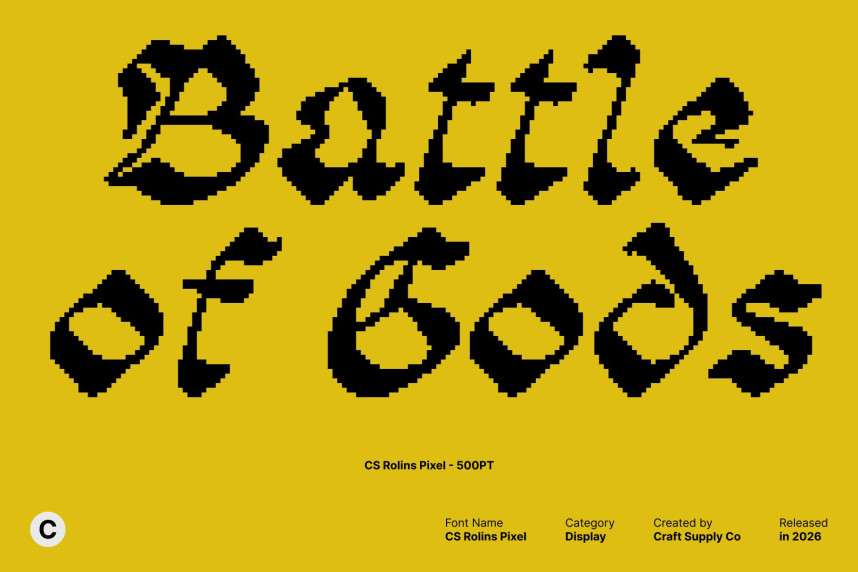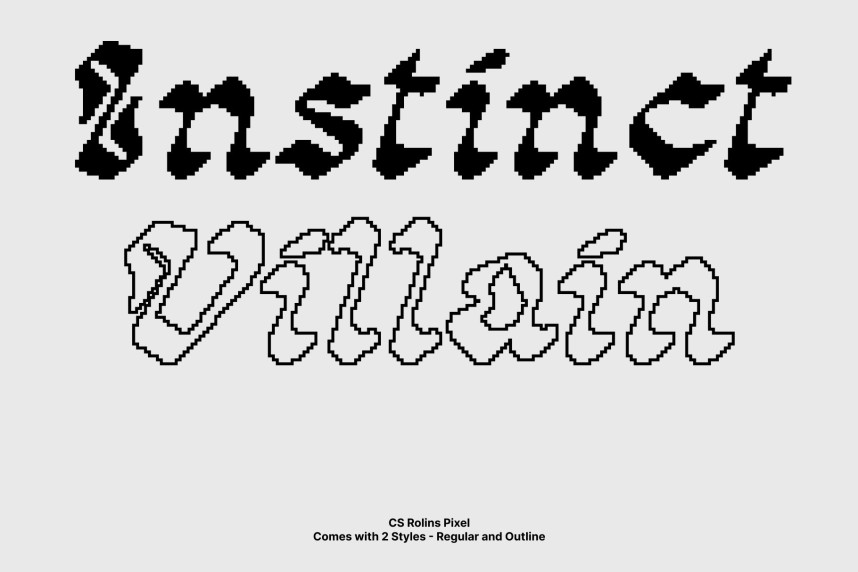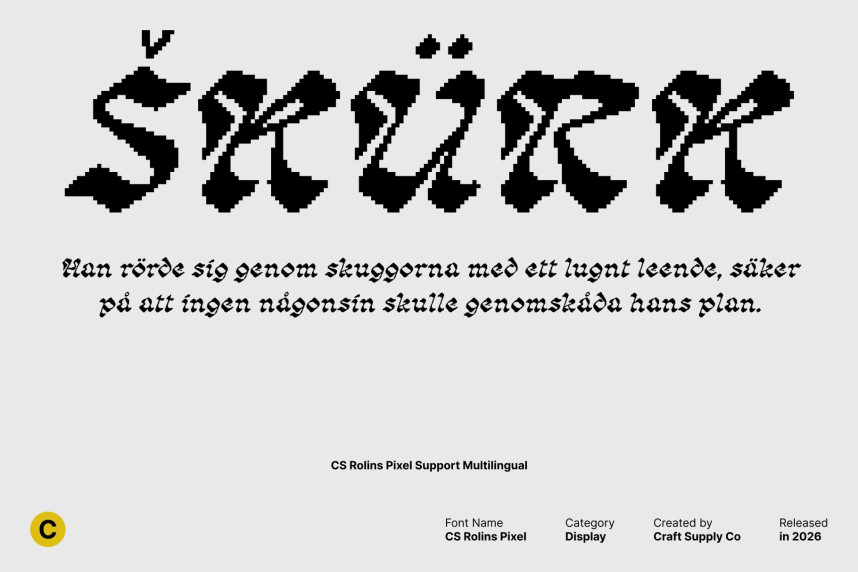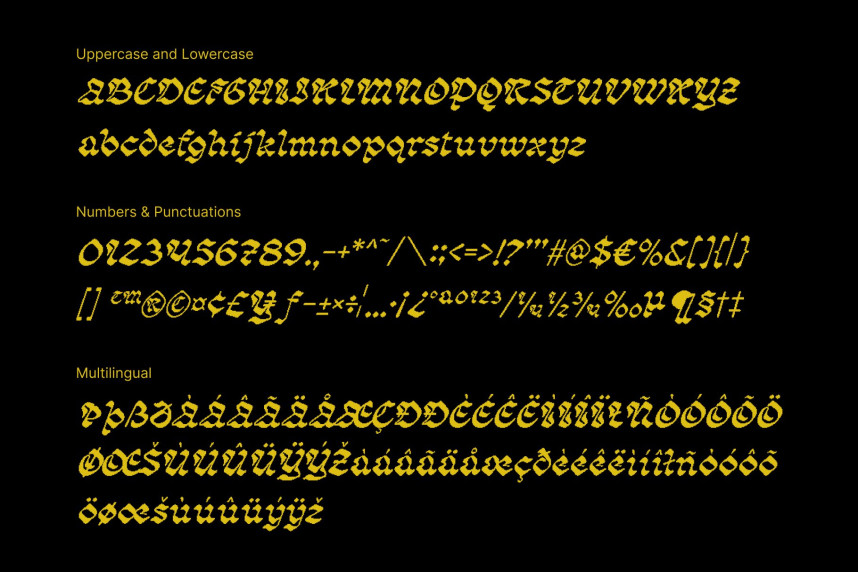
CS Rolins Pixel Font
CS Rolins Pixel Font – Classic Blackletter with Pixel Precision and Rounded Flair Historic Blackletter Meets Pixel Aesthetic. This transforms the traditional Blackletter style into a pixel-perfect display font. The rounded elegance of the original is preserved, but each stroke is reinterpreted with crisp, geometric pixel blocks, giving it a retro-digital charm that works beautifully on screens, posters, and signage. This creates a bold, modern homage to classical Gothic letterforms.